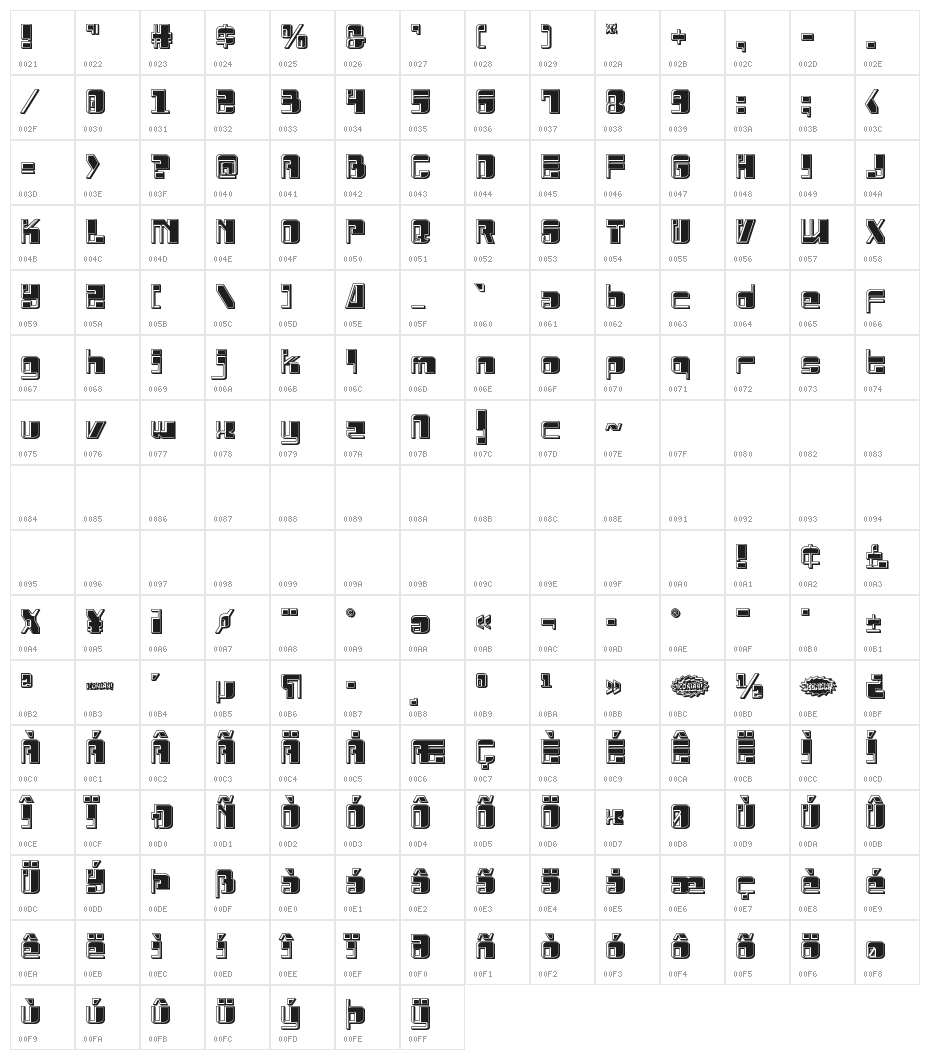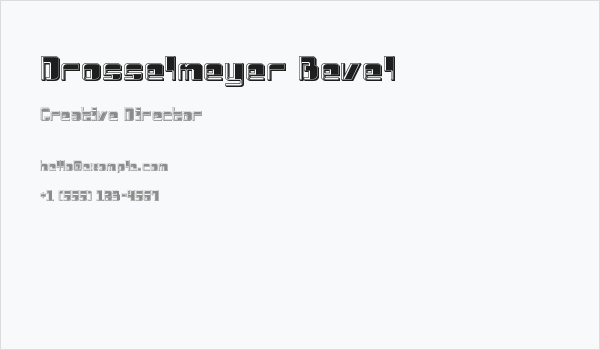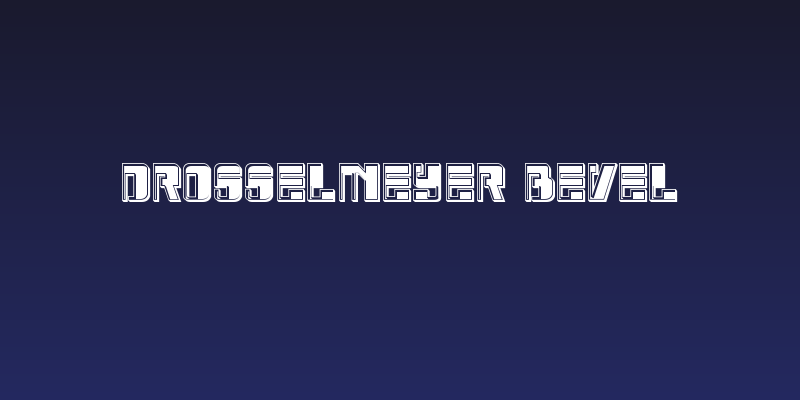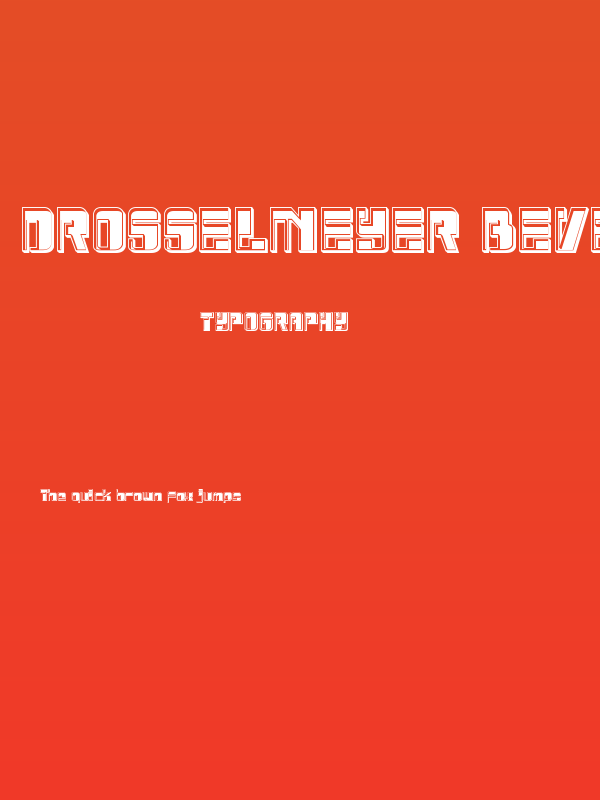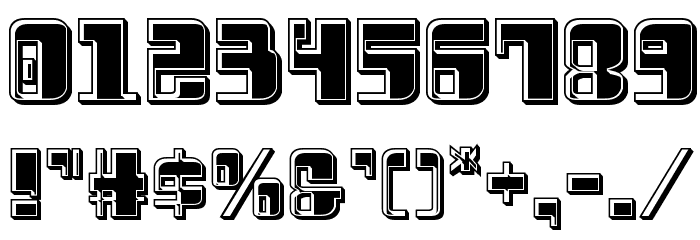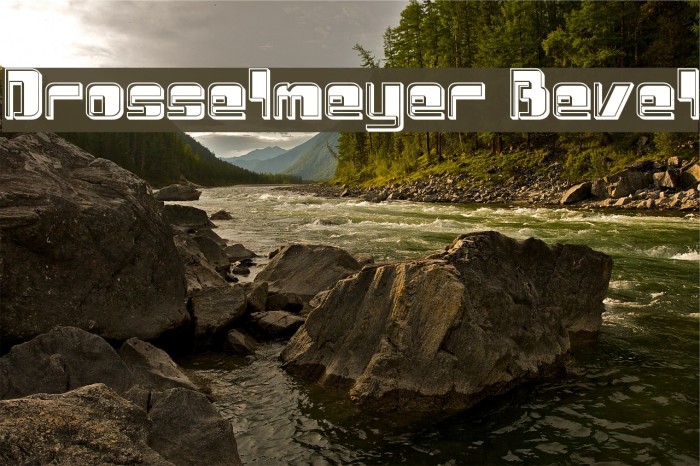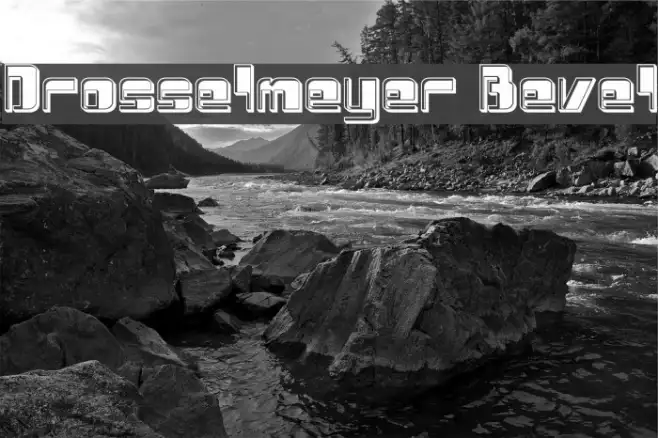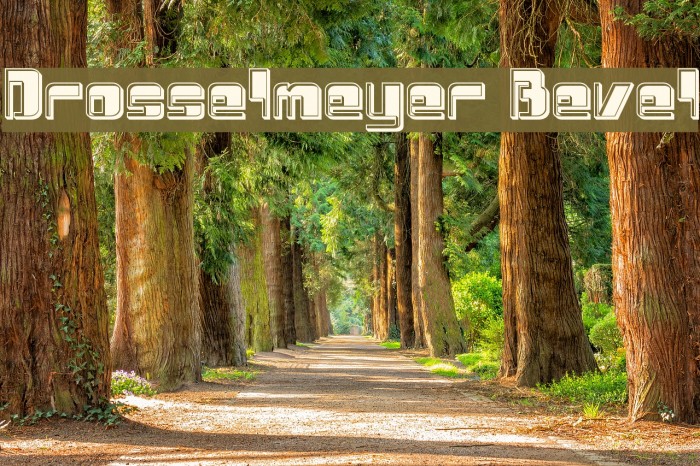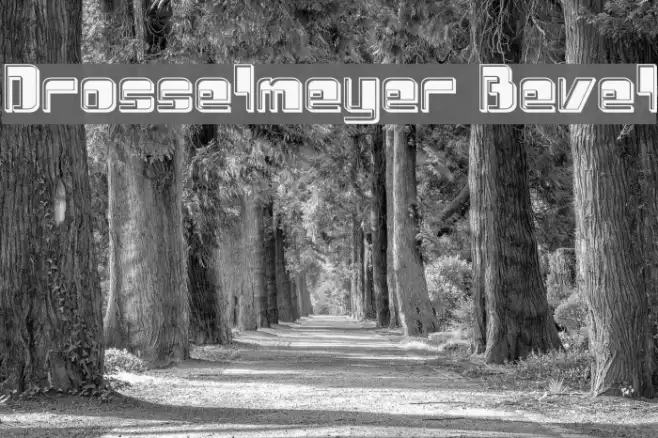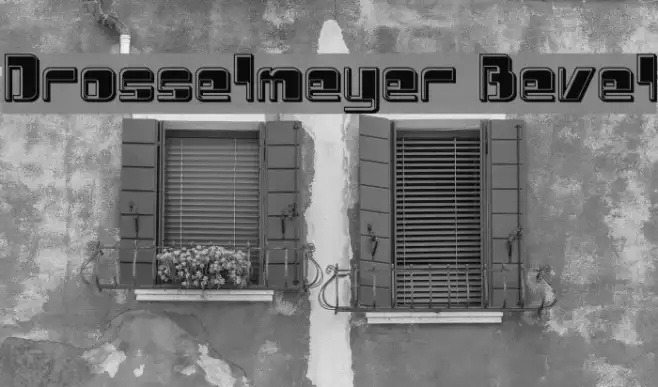
Drosselmeyer Bevel Font
Drosselmeyer Bevel Description
This font features a bold, geometric design with a distinct beveled effect, giving it a three-dimensional appearance. The characters are constructed with thick, uniform strokes and sharp angles, creating a futuristic and industrial feel. The uppercase and lowercase letters maintain a consistent style, with the lowercase being slightly more compact. Numbers and special characters follow the same design principles, ensuring a cohesive look across all glyphs. The font's unique style makes it stand out, ideal for projects that require a strong visual impact.
| Proposed Projects | Ideal for branding, posters, video game graphics, and any project needing a futuristic or industrial aesthetic. |